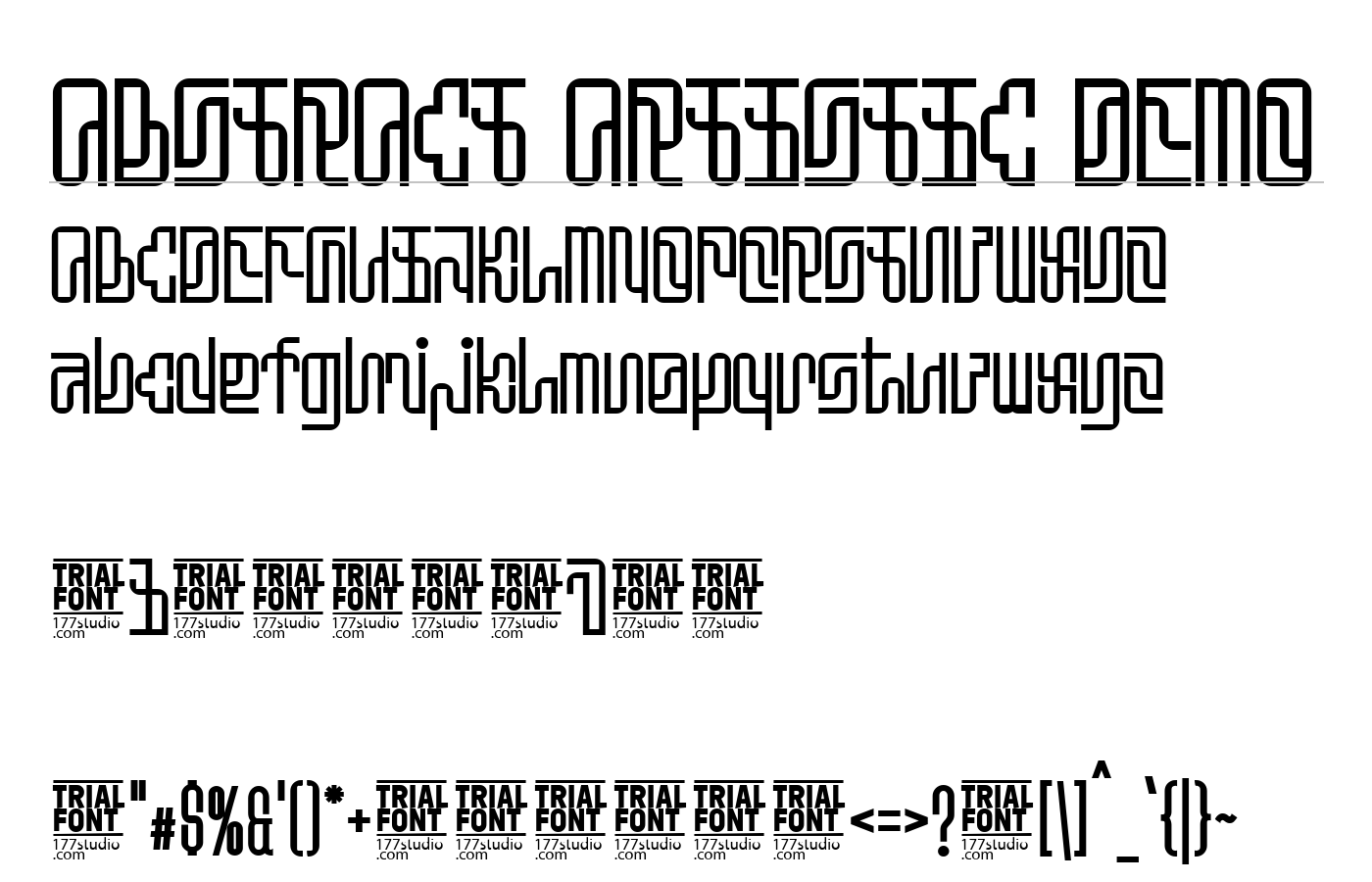
ABSTRACT ARTISTIC DEMO is a modern, condensed sans serif font with a unique, geometric structure that gives it an abstract and futuristic feel. Its narrow letterforms and high x-height enhance readability while maintaining a stylized, tech-inspired personality perfect for bold headlines, logos, or creative branding that seeks to stand out with a distinct, avant-garde edge. This font works best where individuality and a contemporary artistic vibe are desired, making it ideal for fashion, posters, and digital projects.
ABSTRACT ARTISTIC DEMO Font
About ABSTRACT ARTISTIC DEMO Font